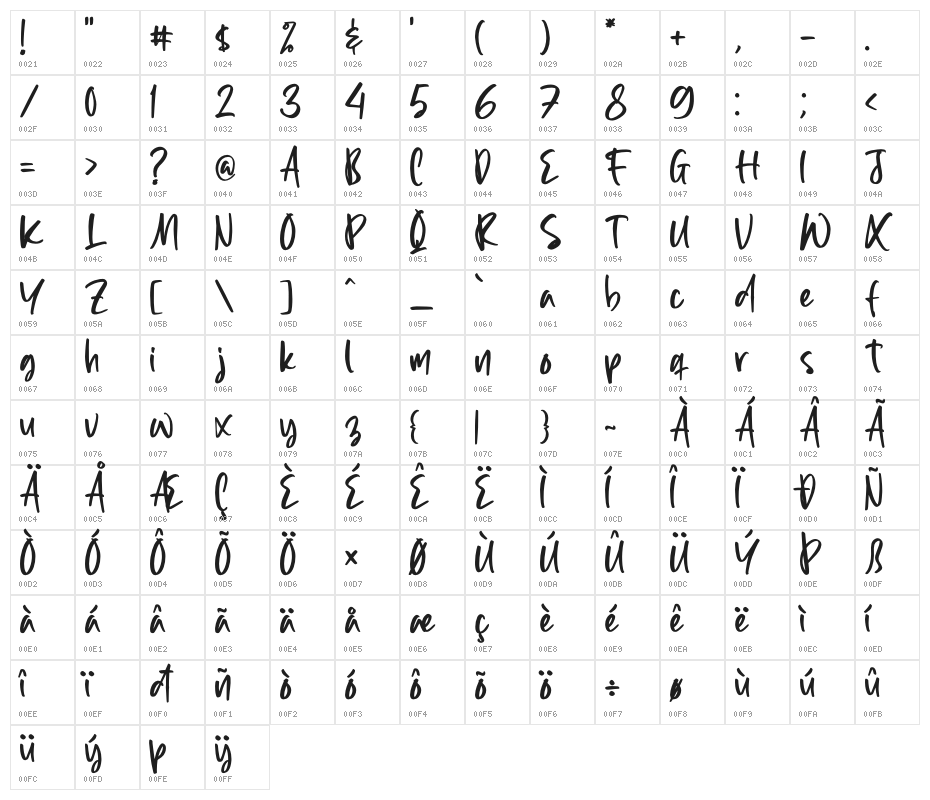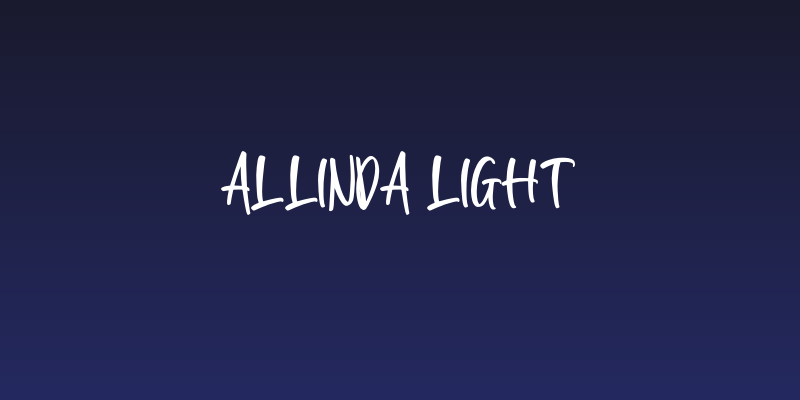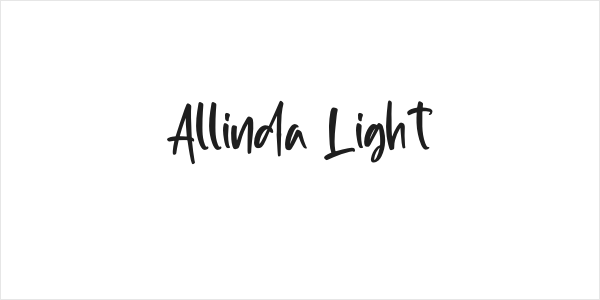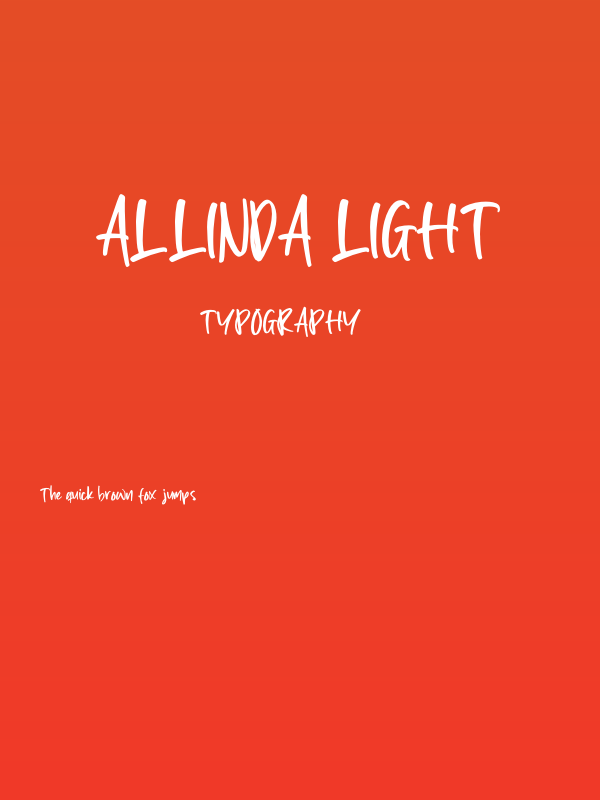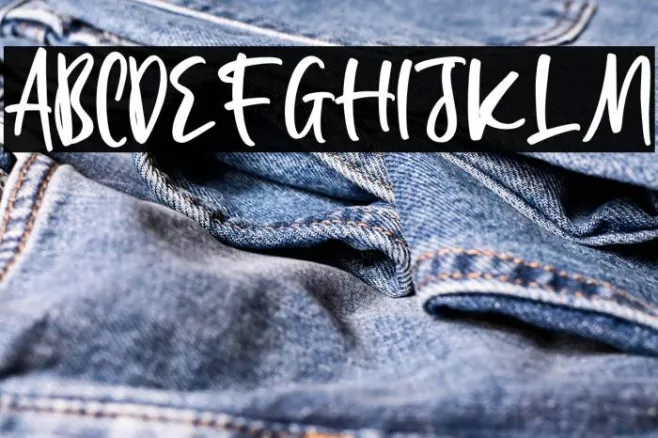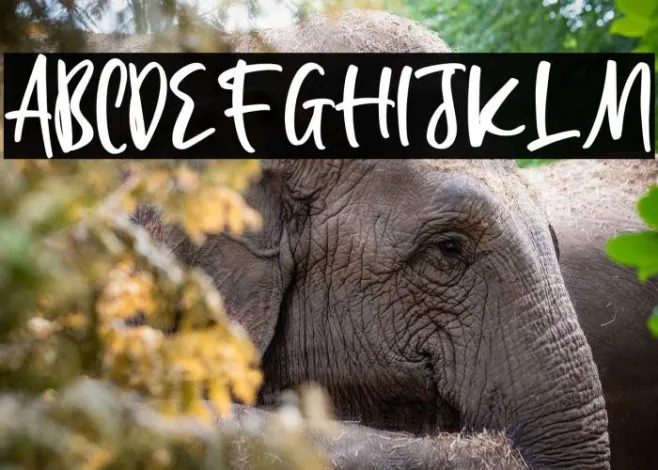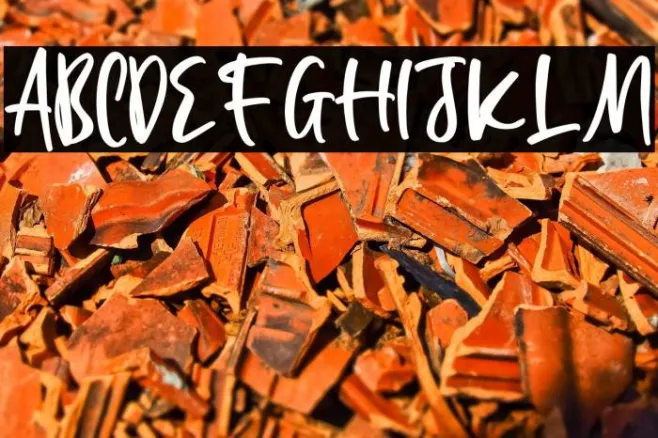
Allinda Light Font
Allinda Light Description
This font features a lively and energetic handwritten style, characterized by its fluid and dynamic strokes. The letters are slightly slanted, giving it a casual and informal appearance. The uppercase and lowercase letters maintain a consistent style, with rounded edges and varying stroke widths that add to its playful nature. The numerals and special characters are equally expressive, fitting seamlessly with the overall design. This font's unique personality makes it stand out, offering a sense of creativity and spontaneity.